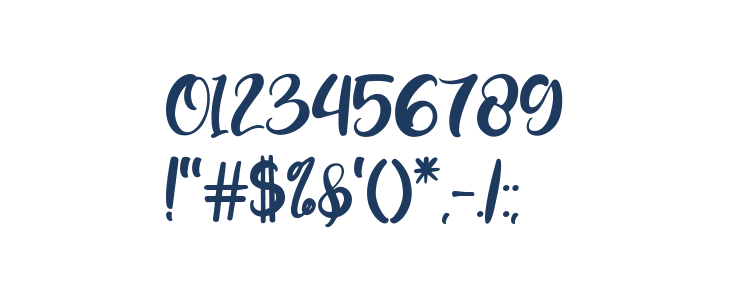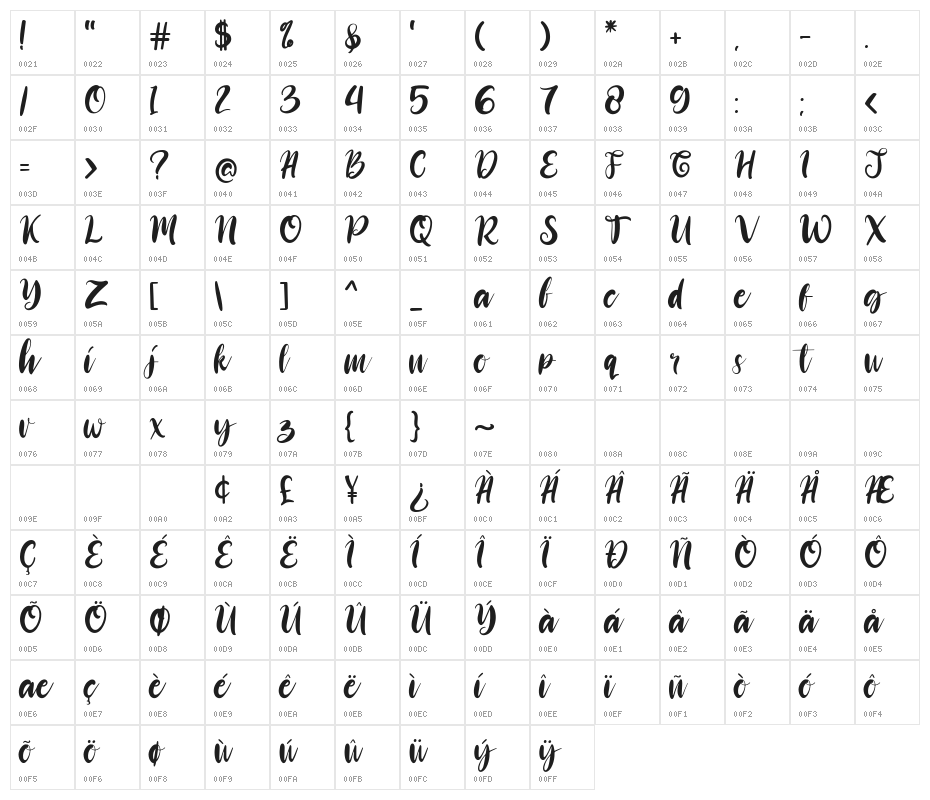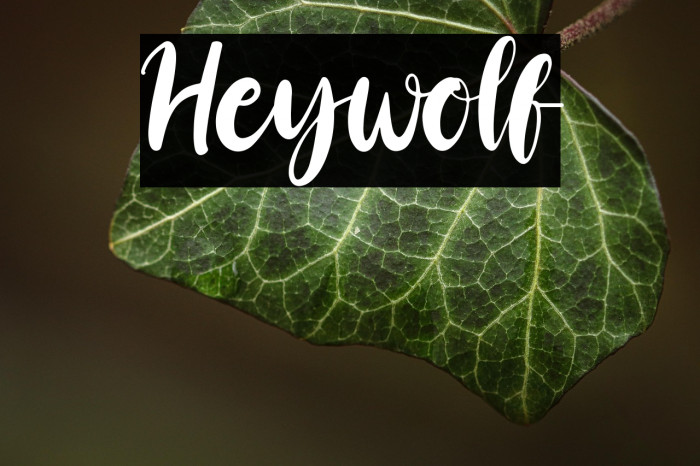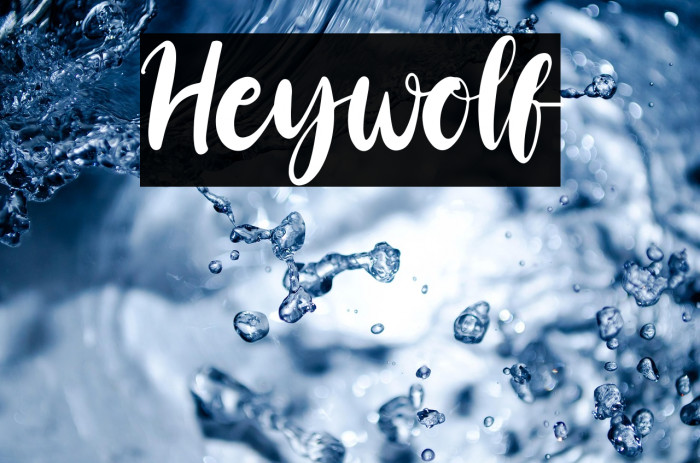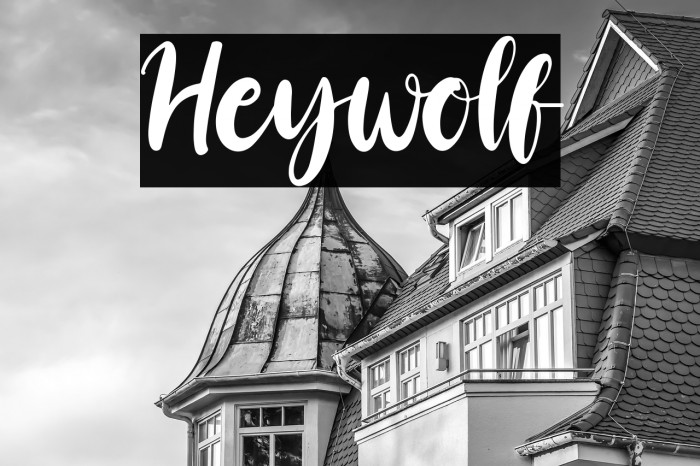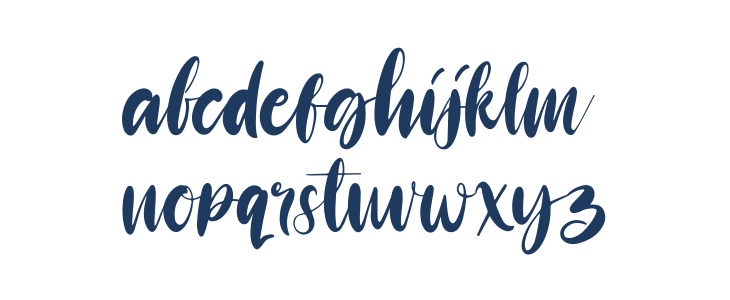
Heywolf Font
Heywolf Description
This font features a bold and expressive script style, characterized by its fluid and dynamic strokes. The letters are interconnected with a smooth flow, giving it a handwritten appearance. The uppercase letters are slightly more structured, while the lowercase letters exhibit a more casual and freeform style. The numbers and special characters maintain the same lively and energetic feel, making them cohesive with the alphabet. This font's playful nature is ideal for projects that require a personal touch.
| Use Case | Logos, Headlines, Invitations |
| Proposed Projects | Ideal for greeting cards, invitations, branding, and social media graphics. |